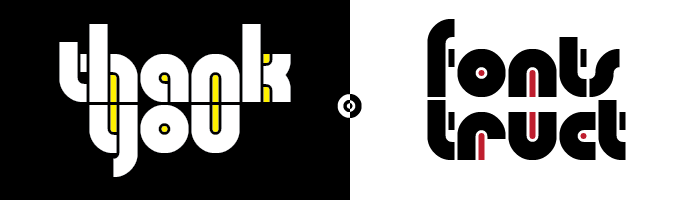
Good work, those little details add something very different to the font. I wonder if 6 and 9 would work better if they were more like g.
A very modern "seventies" sans serif and the inserts make all the difference, great presentation. The samples illustrate it really well.
Pretty cool font, but you should at least support the entire basic latin block.
So very slick! I'll have to observe how you managed these curves without faux curves.